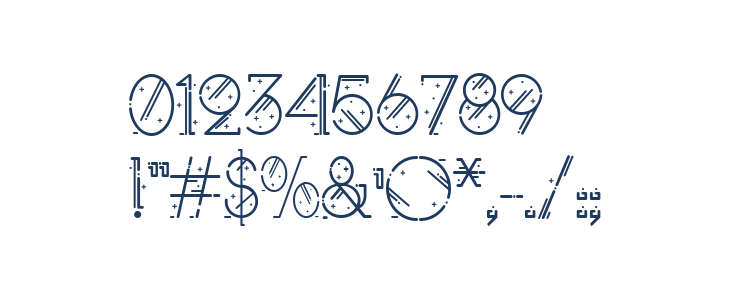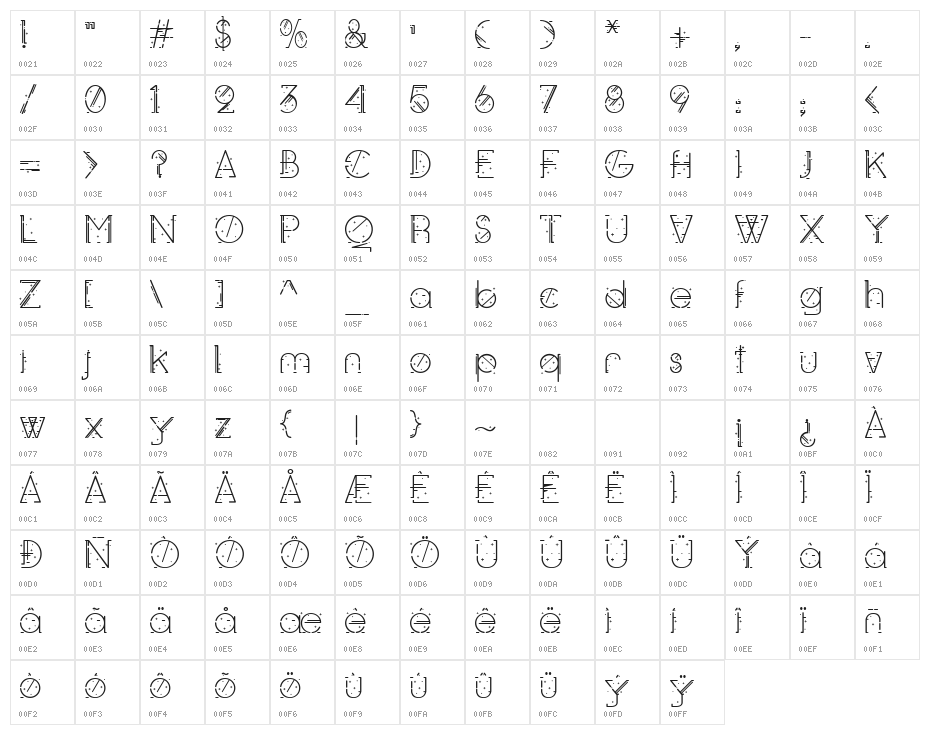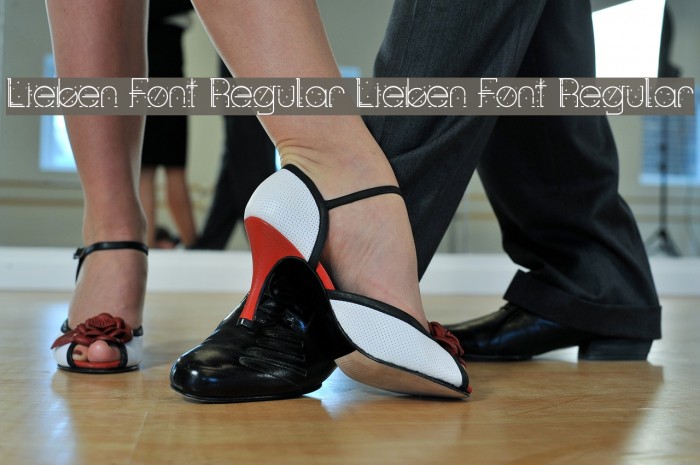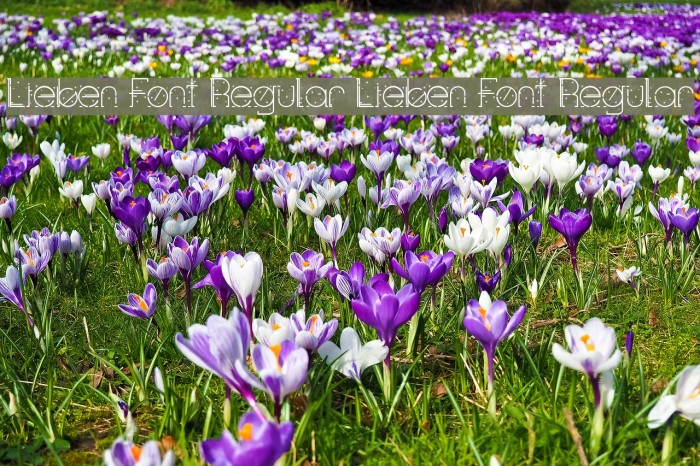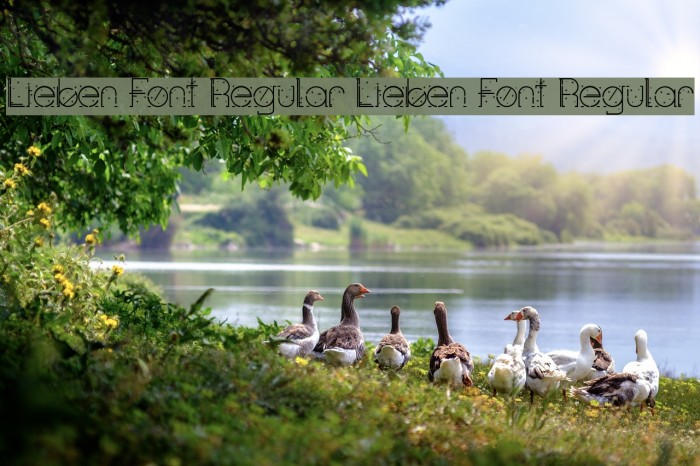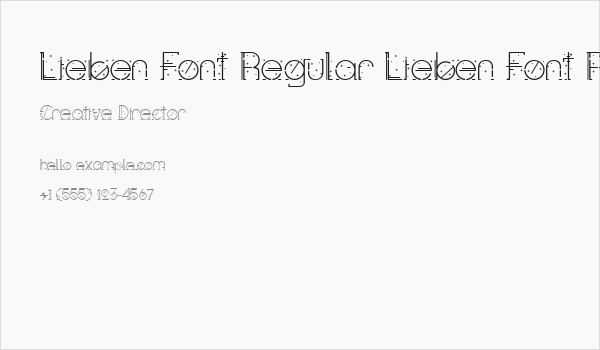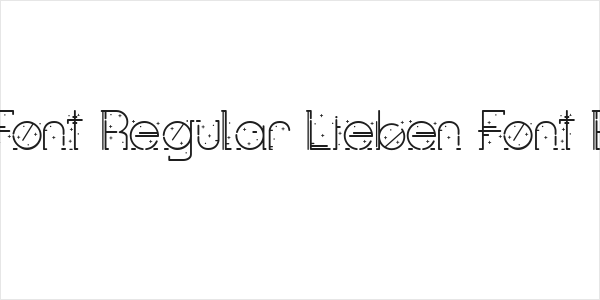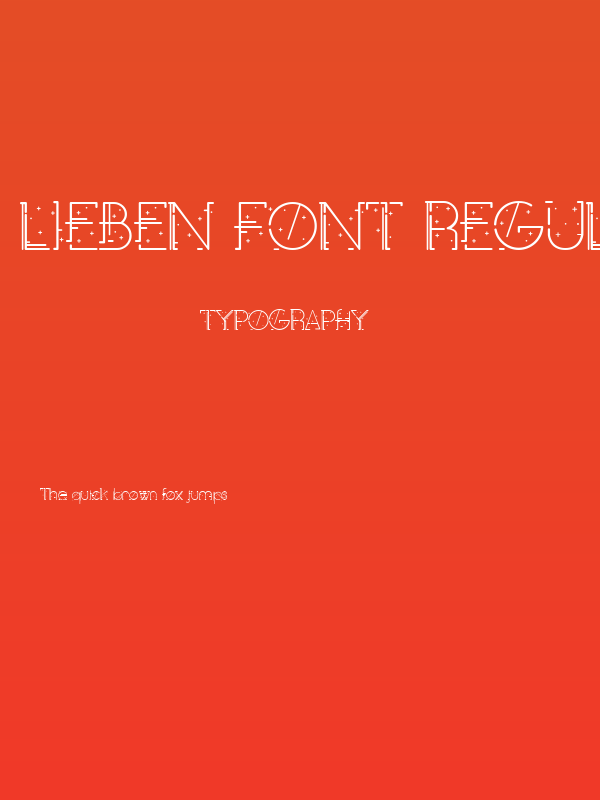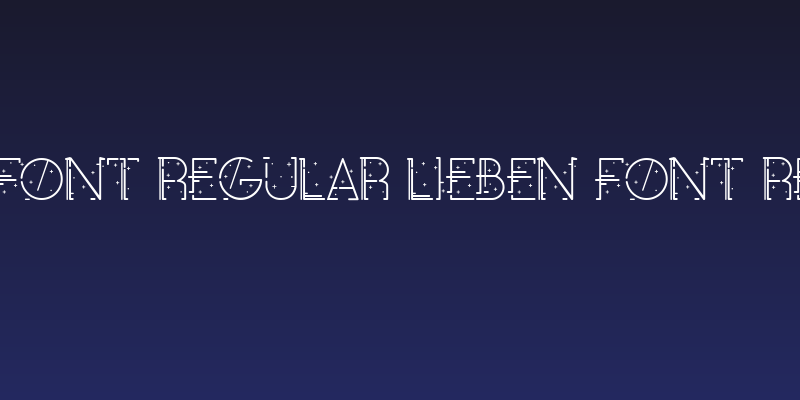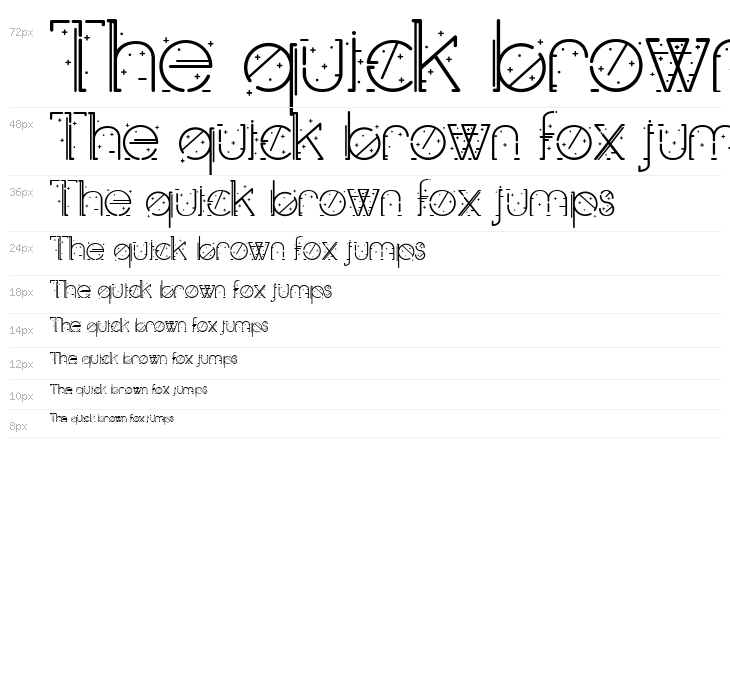
Lieben Font Regular Font
Lieben Font Regular Description
This font features a unique, decorative style with a modern twist. Each character is outlined with a thin line and adorned with small star-like accents, giving it a celestial and whimsical appearance. The uppercase and lowercase letters maintain a consistent geometric form, while the numbers and special characters follow the same design principles. The font's playful yet structured design makes it stand out, suitable for creative projects that require a touch of elegance and fantasy. Its distinct style is perfect for capturing attention and conveying a sense of wonder.
| Proposed Projects | Ideal for invitations, greeting cards, children's books, and branding that requires a magical or celestial theme. |